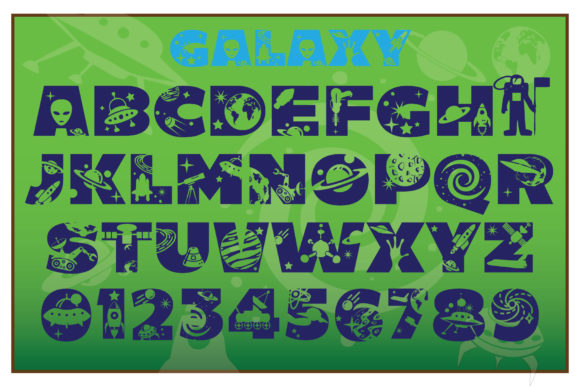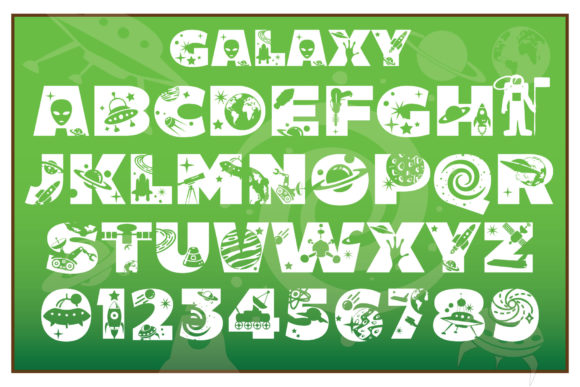
Introducing Galaxy Font: The Perfect Choice for Fun and Creative Projects
Are you looking for a font that embodies playfulness and authenticity? Look no further than Galaxy Font! This friendly and incredibly unique display font is perfect for any children activity or school project. In this article, we’ll dive into the features and benefits of Galaxy Font, and explore how it can add a touch of fun and creativity to your designs.
What is Galaxy Font?
Galaxy Font is a display font designed to capture the imagination of children and adults alike. Its unique and playful design makes it perfect for a wide range of applications, from children’s activity sheets and school projects to posters, flyers, and more. The font’s friendly and approachable style ensures that it will appeal to a broad audience, making it an excellent choice for designers and crafters looking to add a touch of whimsy to their work.
Key Features of Galaxy Font
So, what makes Galaxy Font so special? Here are just a few of its key features:
• Unique and Playful Design: Galaxy Font boasts a one-of-a-kind design that’s sure to stand out from the crowd. Its playful style is perfect for creating fun and engaging content for kids.
• Highly Readable: Despite its playful design, Galaxy Font is highly readable, even at smaller sizes. This makes it perfect for use in a wide range of applications, from headings and titles to body text.
Benefits of Using Galaxy Font
So, why should you choose Galaxy Font for your next project? Here are just a few benefits of using this amazing font:
• Adds a Touch of Whimsy: Galaxy Font is the perfect way to add a touch of fun and whimsy to your designs. Its playful style is sure to delight kids and adults alike.
• Perfect for Children’s Content: Whether you’re creating activity sheets, posters, or other materials for kids, Galaxy Font is the perfect choice. Its friendly and approachable style is sure to appeal to children.
• Versatile: Galaxy Font is highly versatile, making it perfect for use in a wide range of applications, from digital content to print materials.
How to Use Galaxy Font in Your Designs
Using Galaxy Font in your designs is easy! Here are a few tips to get you started:
• Pair with Other Fonts: Galaxy Font pairs perfectly with other fonts, making it easy to create visually appealing combinations. Try pairing it with a clean sans-serif font for a bold and modern look.
• Experiment with Colors: Galaxy Font looks great in a wide range of colors, from bright and bold to pastel and soft. Experiment with different colors to find the perfect look for your design.
• Use for Headings and Titles: Galaxy Font is perfect for use in headings and titles, where its playful style can really shine.
Font Name Galaxy Font
Author KtwoP
In conclusion, Galaxy Font is a friendly and incredibly unique display font that’s perfect for any children activity or school project. Its playful style and highly readable design make it an excellent choice for designers and crafters looking to add a touch of fun and creativity to their work. With its versatility and wide range of applications, Galaxy Font is sure to become a favorite in your font collection.